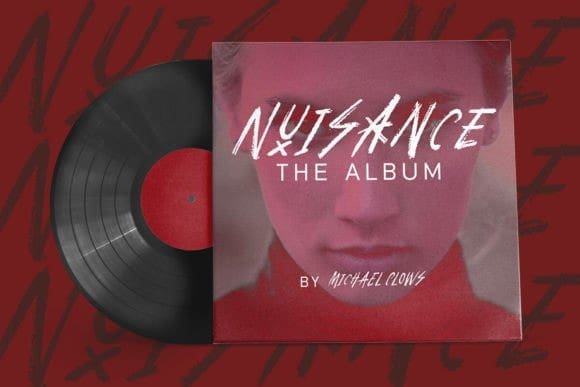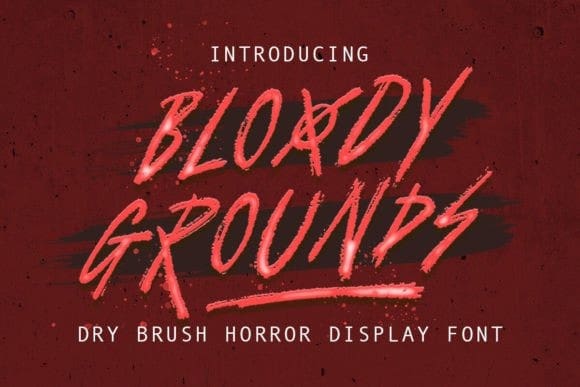
Bloody Grounds Font
Bloody Grounds Font, is a textured dry brush font, It’s organic and hand-drawn appearance adds a touch authenticity to your designs, making it a perfect choice for projects that seek to stand out with freestyle display typeface.